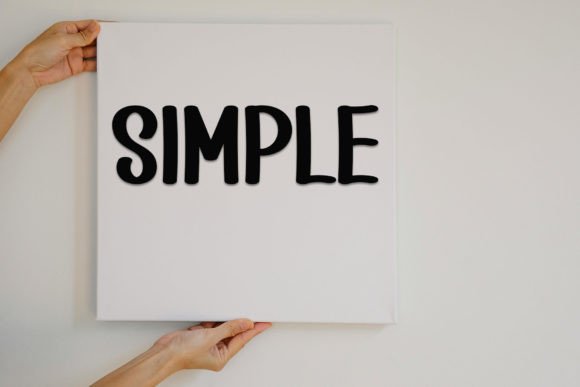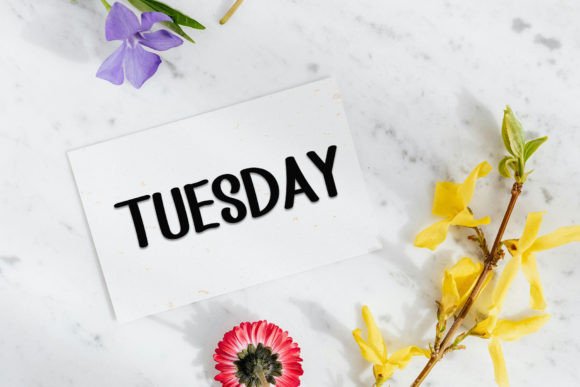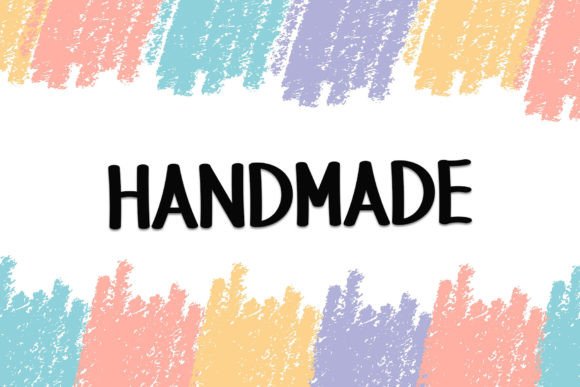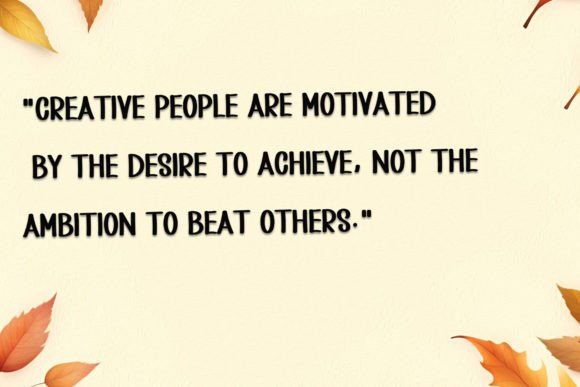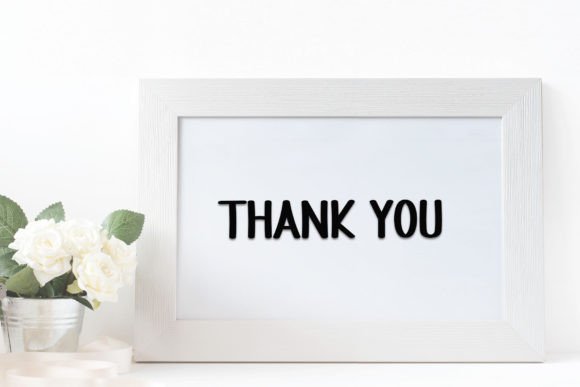
Introduction to Monday Vacation Font
Monday Vacation is a neat and beautiful handwritten font described by an elegant touch, perfect for your favorite projects Fall in love with its incredibly distinct and timeless style, and use it to create spectacular designs.
Monday Vacation is a neat and beautiful handwritten font described by an elegant touch, perfect for your favorite projects Fall in love with its incredibly distinct and timeless style, and use it to c
Key Features of Monday Vacation Font
Why Choose Monday Vacation Font?
Monday Vacation Font offers exceptional quality and versatility, making it a valuable addition to your design toolkit. Whether you’re creating for personal projects or commercial use, Monday Vacation Font delivers professional results.